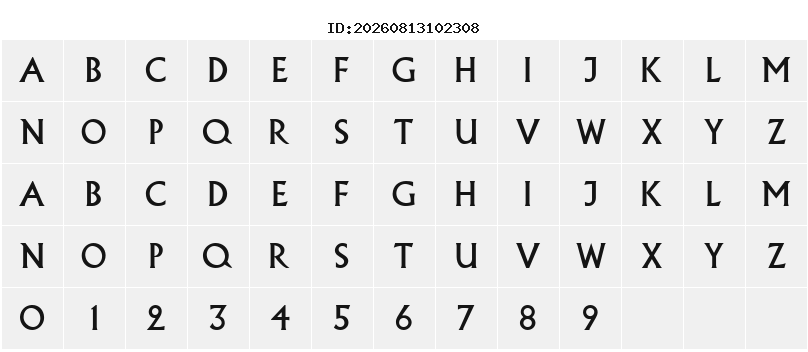
Regina Preview
• Font Name: Regina
• Full Font Name: Regina
About Regina.ttf
Regina.ttf is a modern, elegant sans-serif font designed for ultimate readability and visual harmony. Perfect for branding, headlines, web design, and print materials.